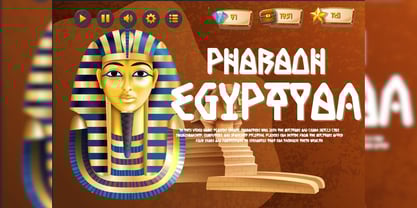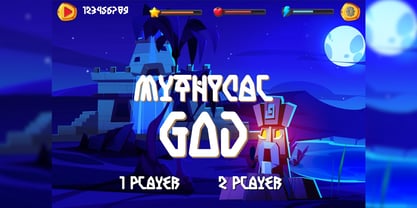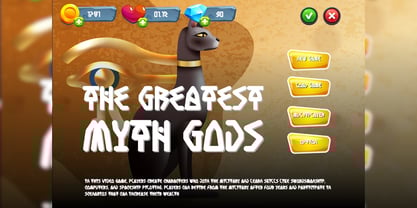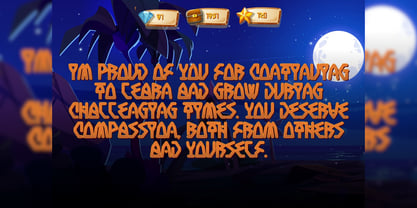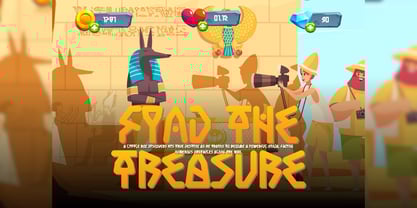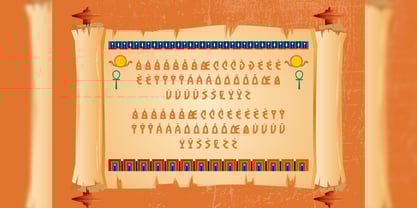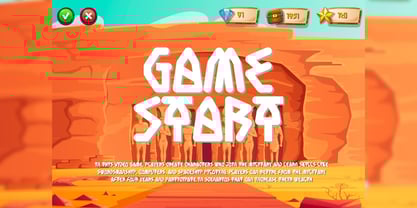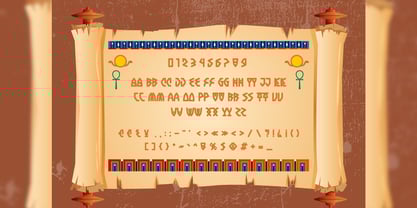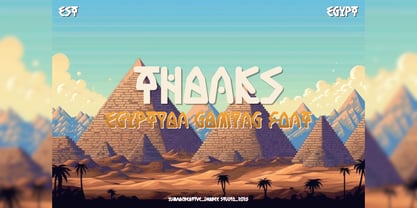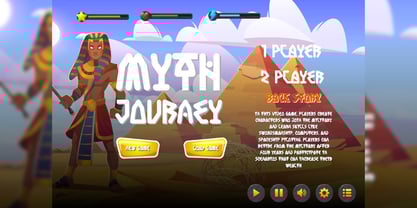
Tukamenh
The Tukamenh Font Family was designed by Dhimas Habibie and published by Yumnacreative. Tukamenh contains 1 styles. More about this family
Introducing Tukamenh – Egypt Gaming Font
Tukamenh – Egypt Gaming Font isn’t just a font it’s a portal to a world of ancient wonder. It’s your key to crafting designs that transport viewers to the heart of Egypt’s storied past, where the sands whisper secrets and hieroglyphs tell tales. Elevate your projects, captivate your audience, and embrace Tukamenh – Egypt Gaming Font that’s rewriting the rules of design history.
FEATURES
– Uppercase and Lowercase letters
– Numbering and Punctuations
– Multilingual Supports